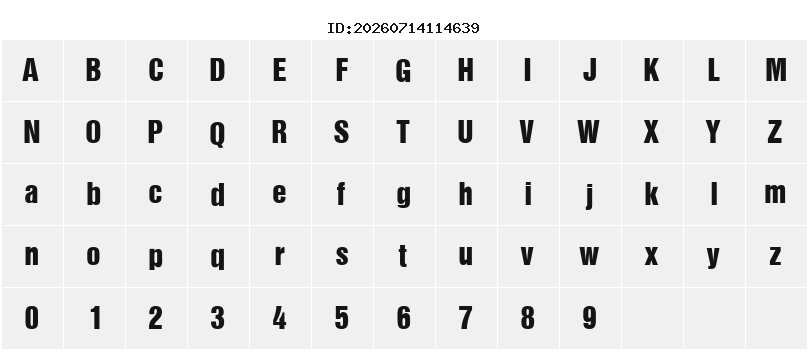
HegelInserat Preview
• Font Name: HegelInserat
• Full Font Name: HegelInserat-Bold
• PostScript Name: HegelInserat-Bold
About HegelInserat.ttf
HegelInserat.ttf is a modern, elegant sans-serif font designed for ultimate readability and visual harmony. Perfect for branding, headlines, web design, and print materials.